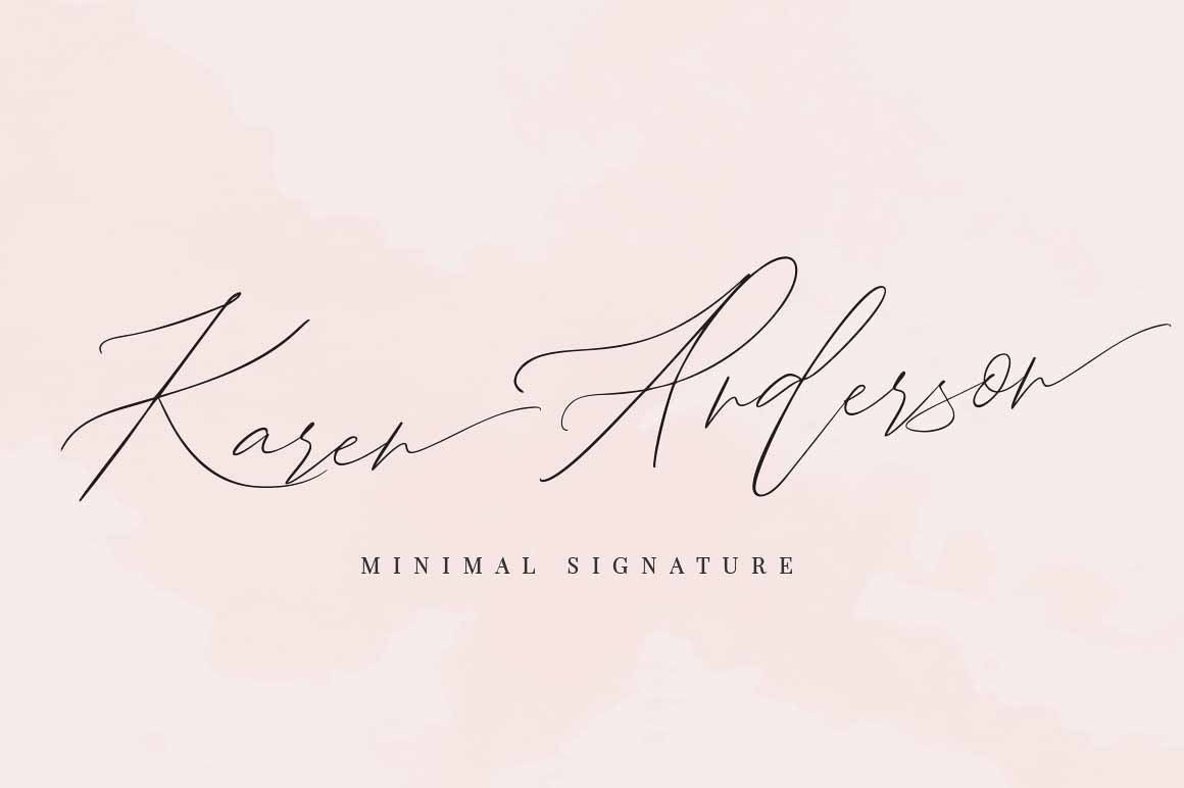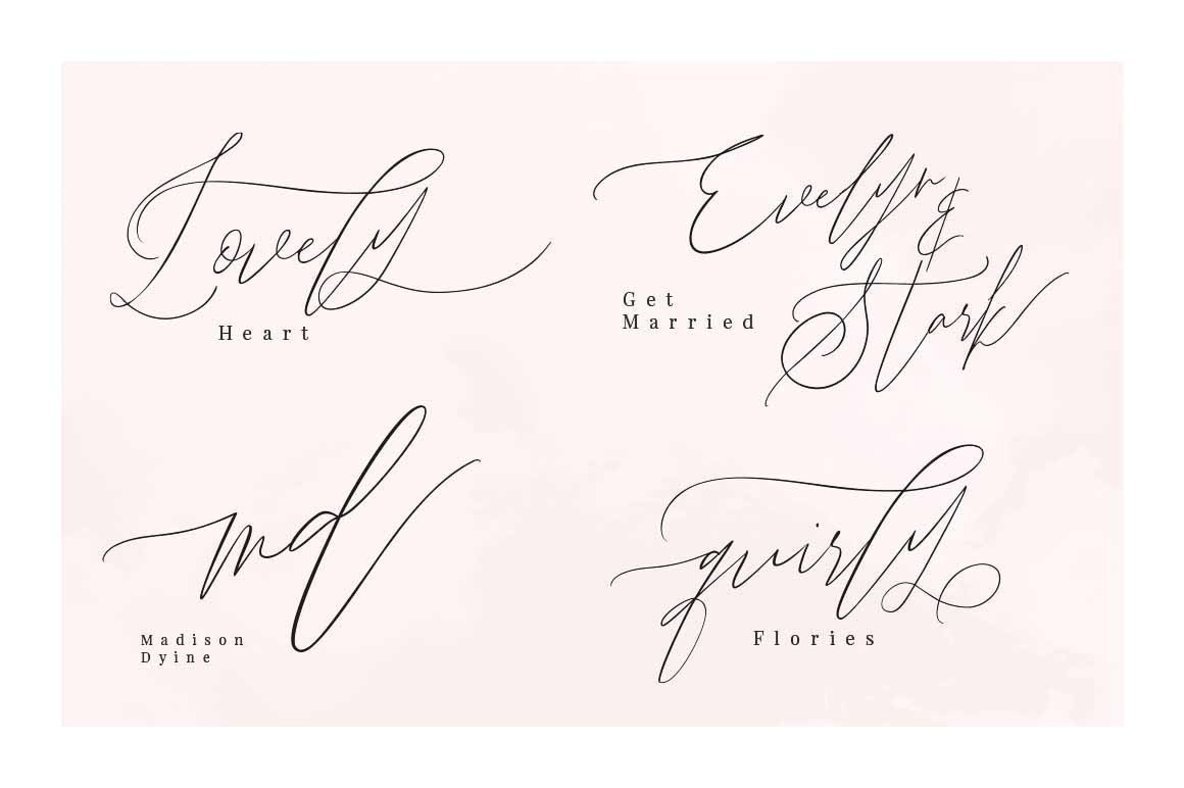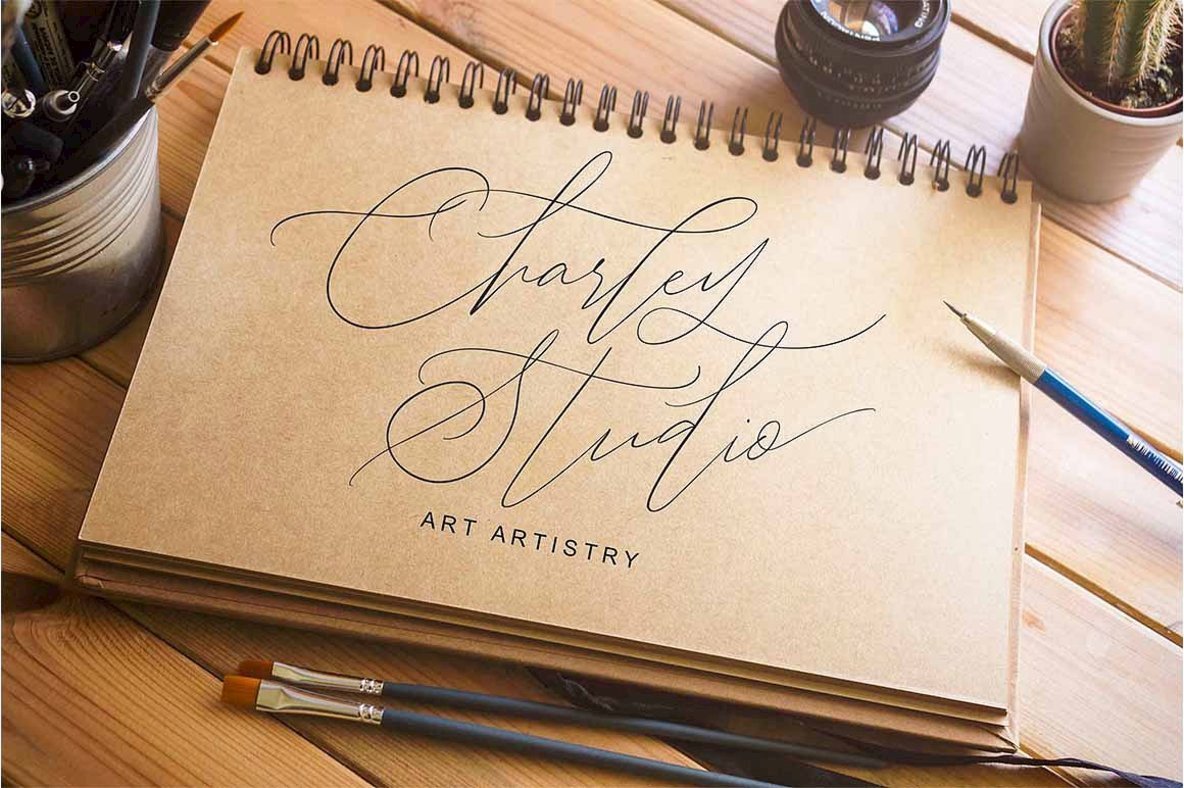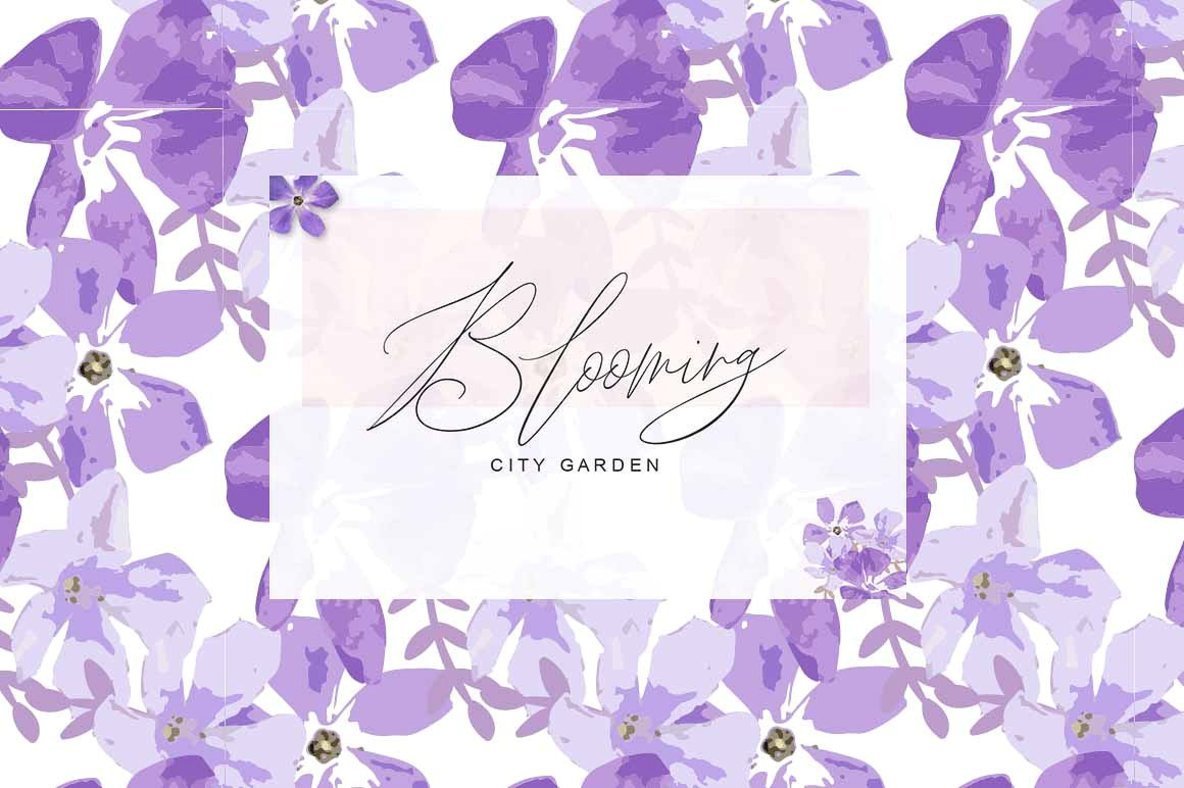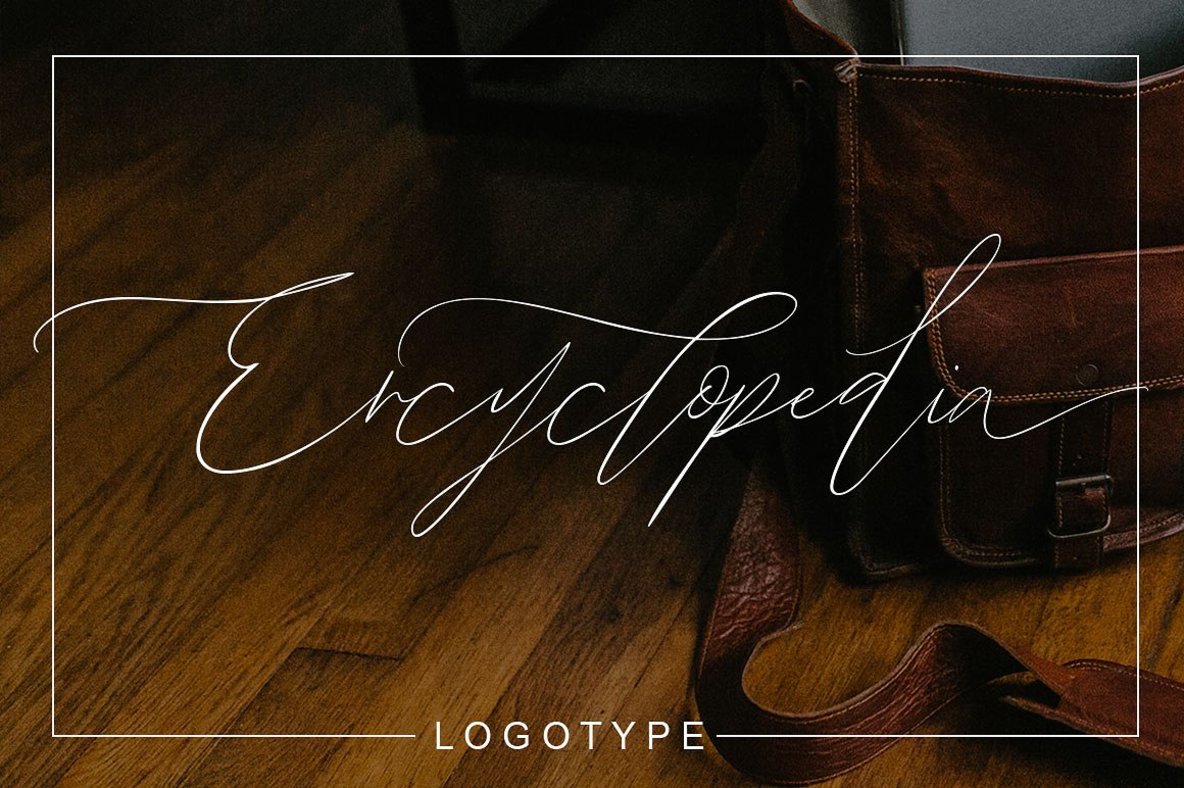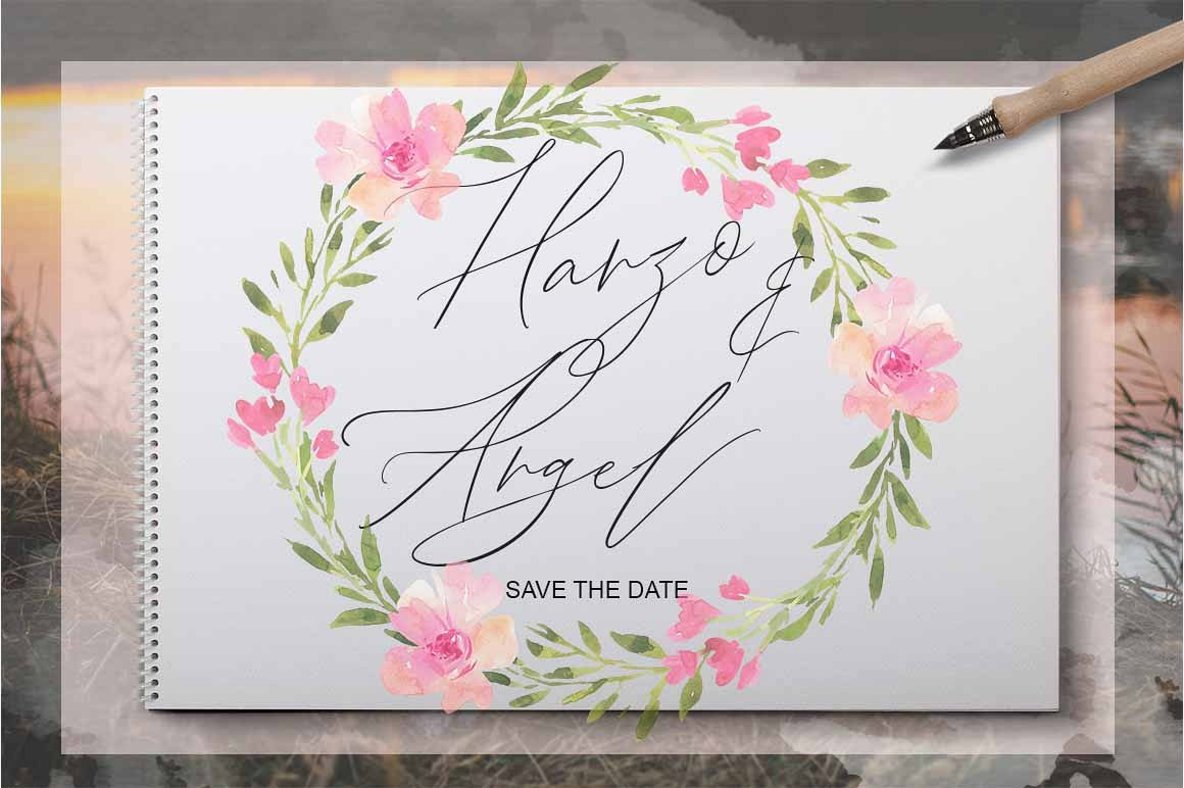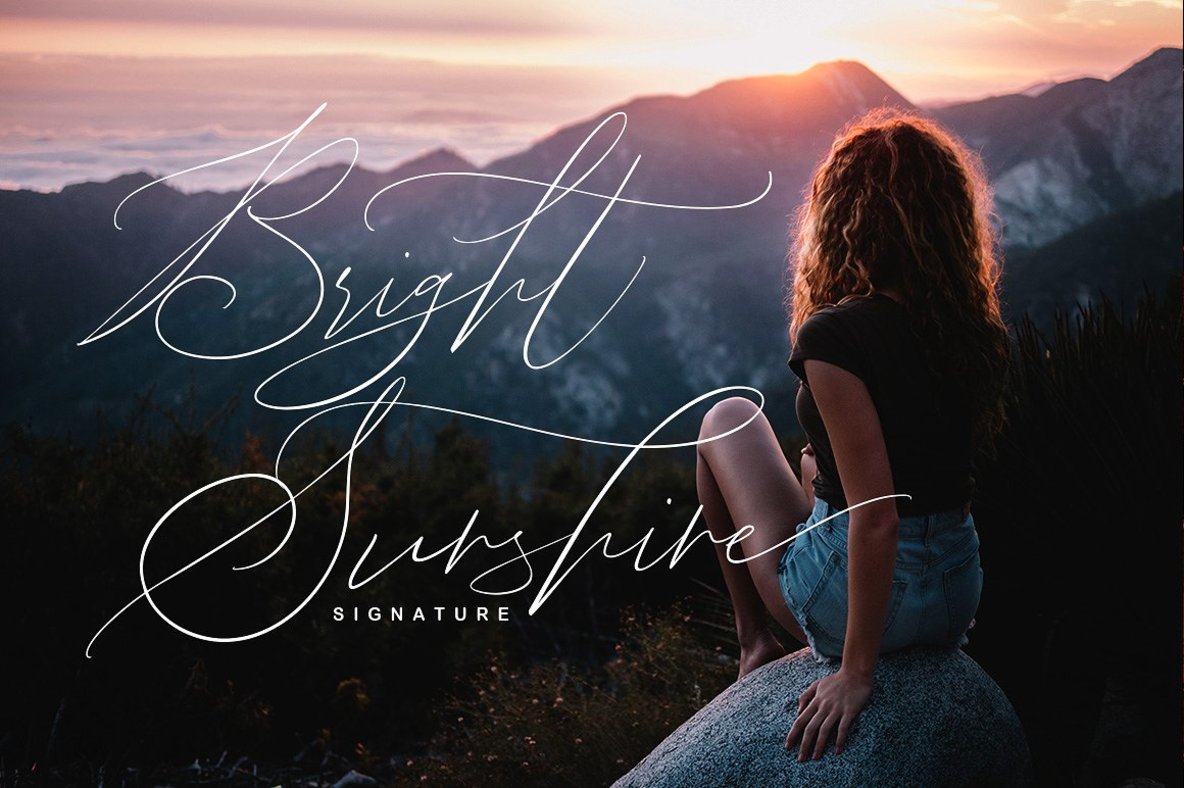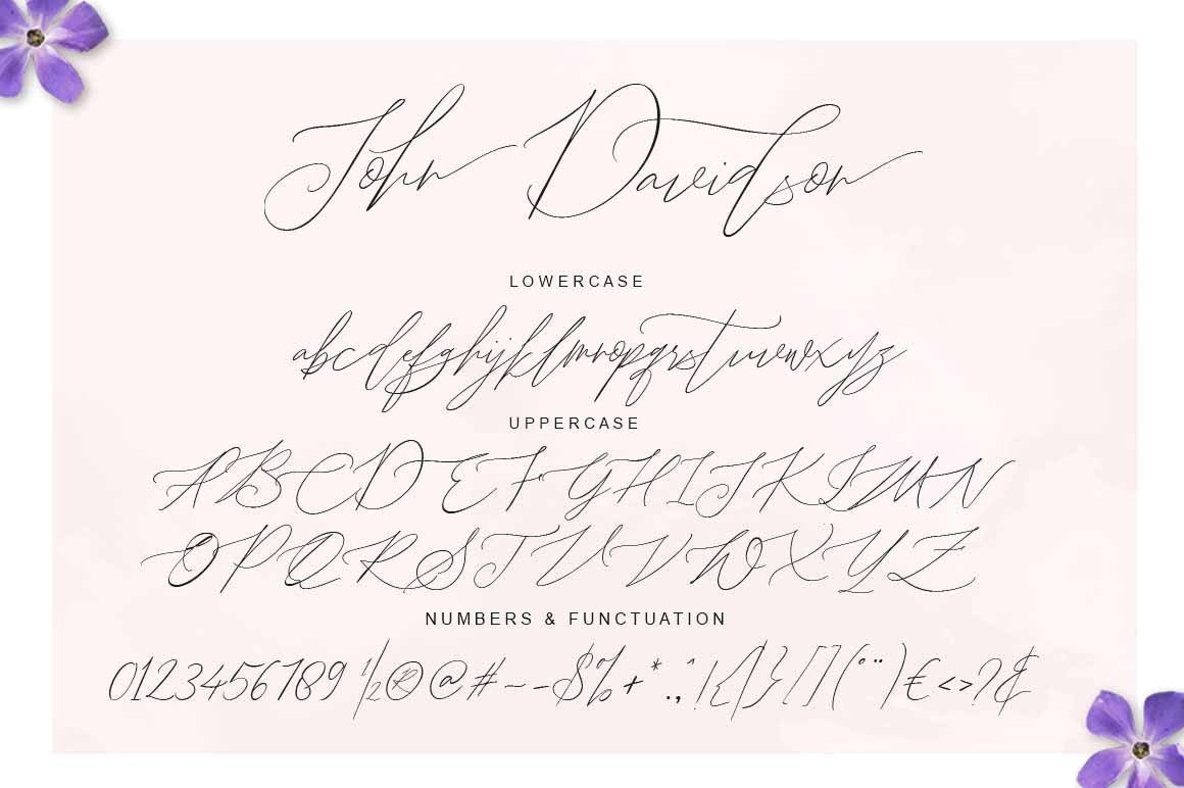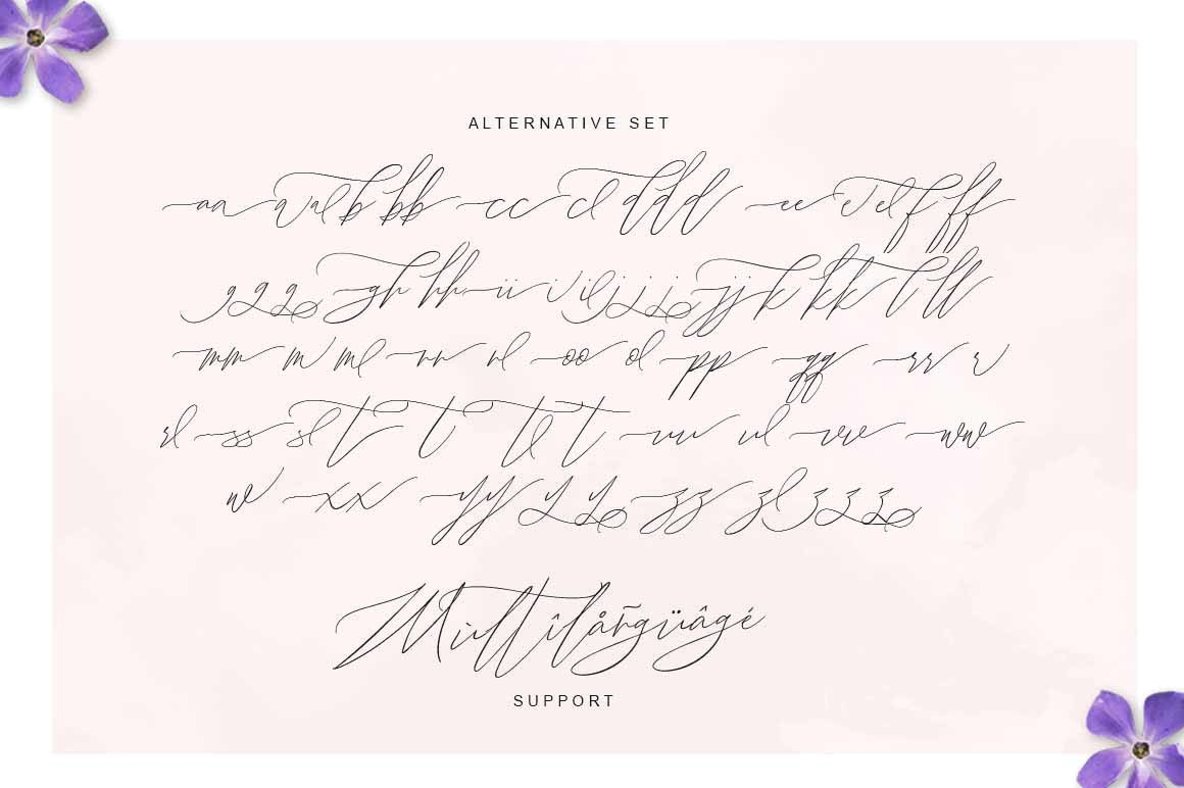
John Davidson Font
John Davidson
John Davidson emerges as a quintessential choice for those who appreciate the elegance of modern calligraphy. This font, celebrated for its handwritten sophistication, achieves a perfect balance, enhancing diverse design projects. Whether you're crafting logos, branding materials, wedding invitations, or social media graphics, John Davidson offers a harmonious typographic experience that elevates your designs. For the best utilization of its OpenType features, such as stylistic alternates, access them using software like Adobe Illustrator, Adobe InDesign, or CorelDraw. Additional tools like Character Map, Nexus Font, or Font Book offer simple ways to explore its extensive alternates.John Davidson: Modern Calligraphy with Sophisticated Flow